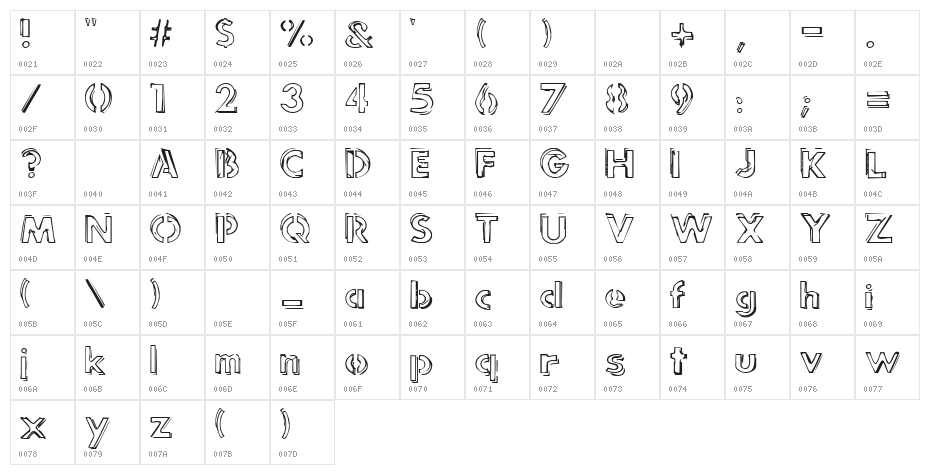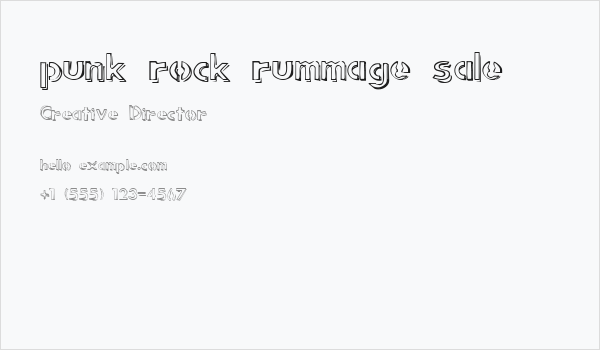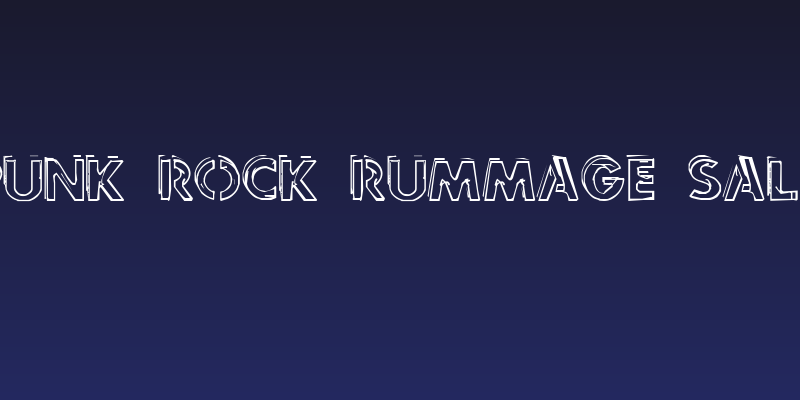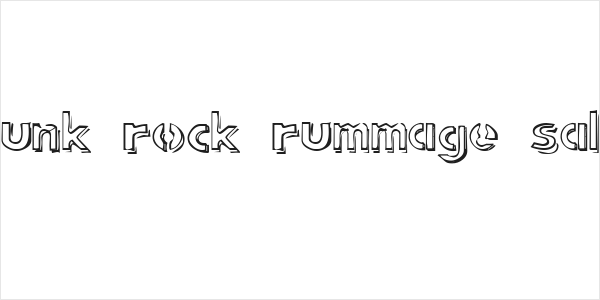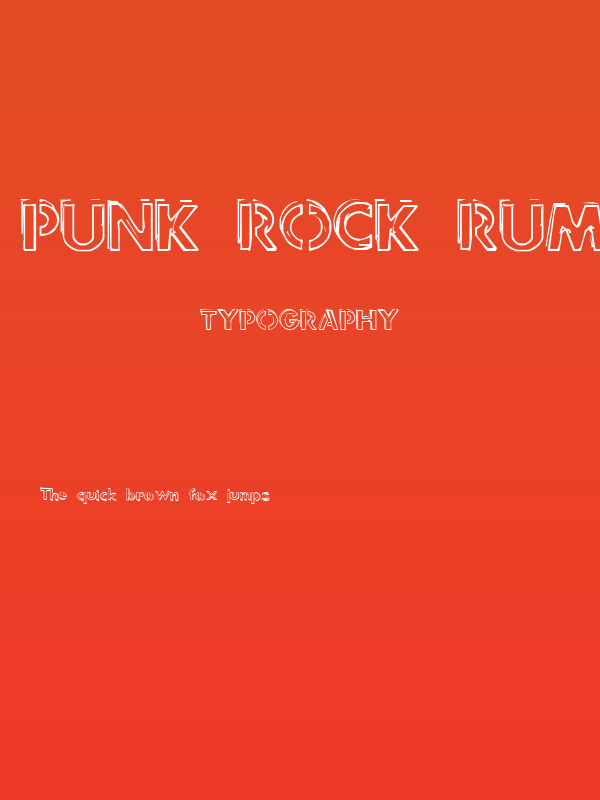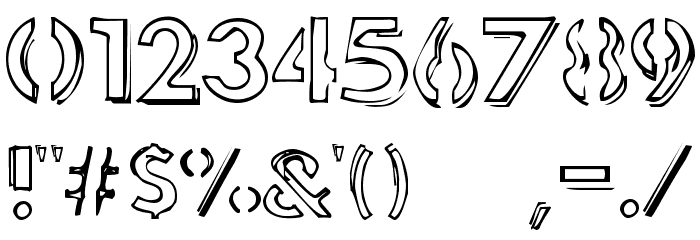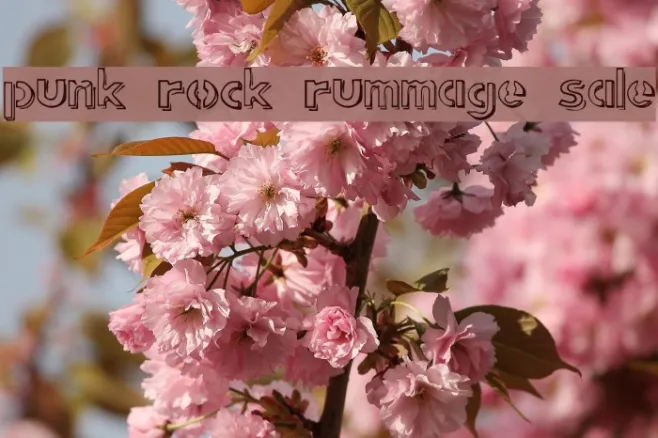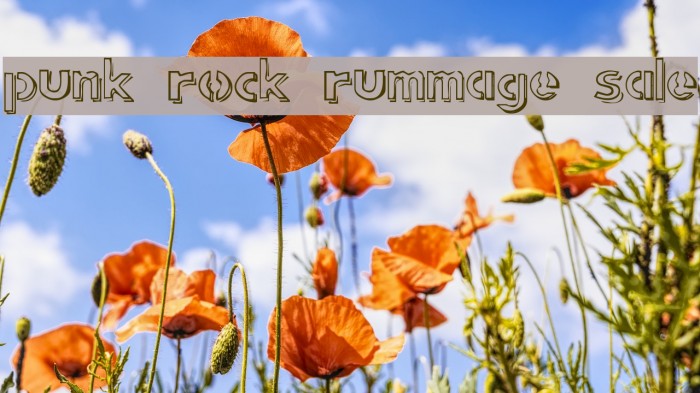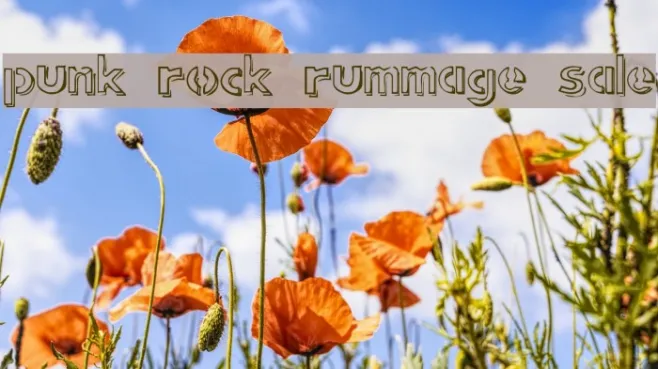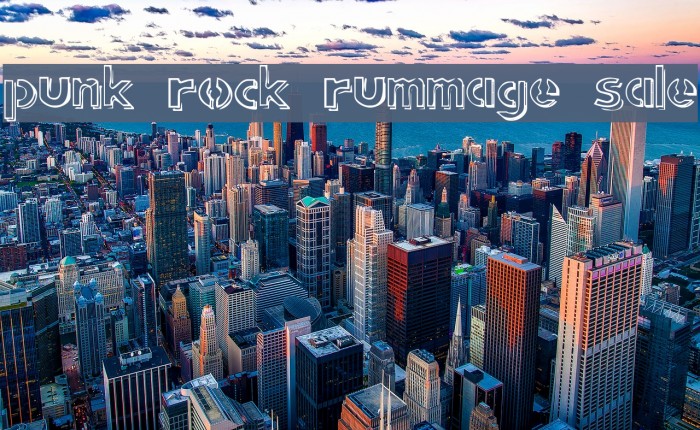
punk rock rummage sale Font
punk rock rummage sale Description
This font features a bold, edgy design with a distinct punk rock aesthetic. The letters are outlined with a shadow effect, giving them a three-dimensional appearance. The uppercase and lowercase letters maintain a consistent style, with sharp angles and a slightly irregular form that adds to the rebellious feel. The numbers and special characters follow the same design principles, ensuring a cohesive look across all elements. This font is perfect for projects that require a bold statement, capturing attention with its unique and unconventional style.
| Overall Style | Punk, Edgy, Modern |
| Proposed Projects | Ideal for music posters, album covers, event flyers, and branding for edgy or alternative brands. |